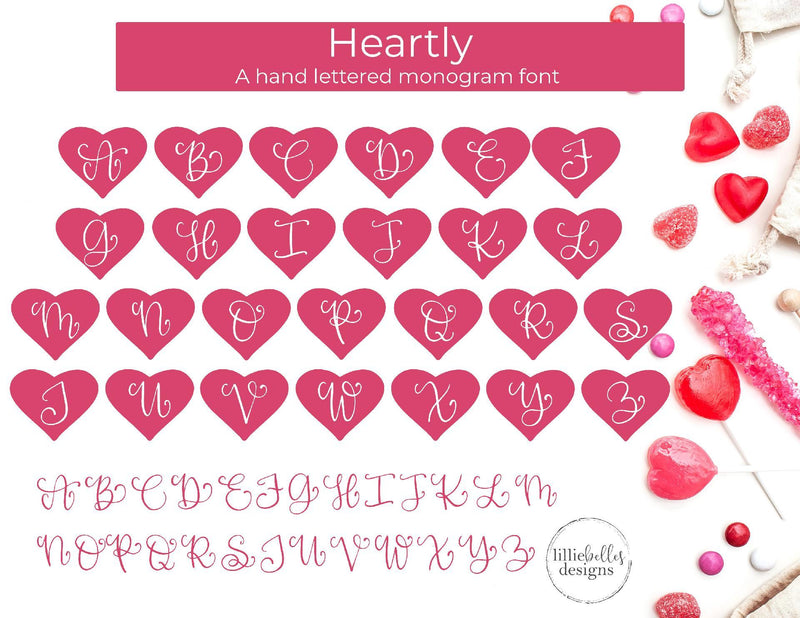
Heartly Monogram Font
Heartly Monogram Font - A hand lettered monogram font.
Who doesn't love a cute monogram? The Heartly Monogram Font features 26 heart monograms, & I also included the characters without the heart - allowing you to use the letters with other frames and designs. This font is perfect for making personalized gifts - use any color just like a regular font. Check out the pics for design inspiration.
Font features include:
- 26 Heart Monograms with characters. Type as uppercase to get the heart monogram.
- 26 Regular Swirly Script Characters. Type as lowercase to get the characters only.
The full set of characters is shown in the 1st pic.